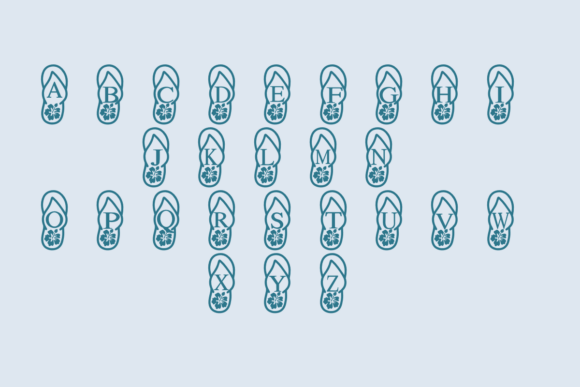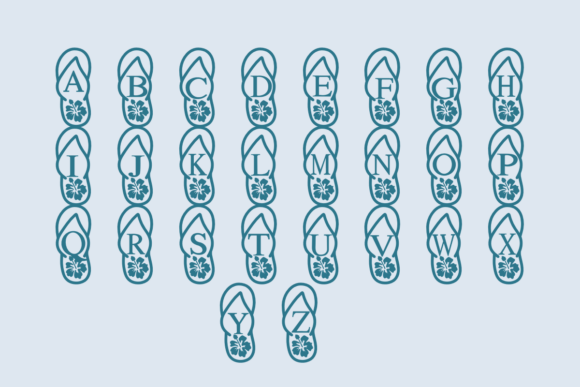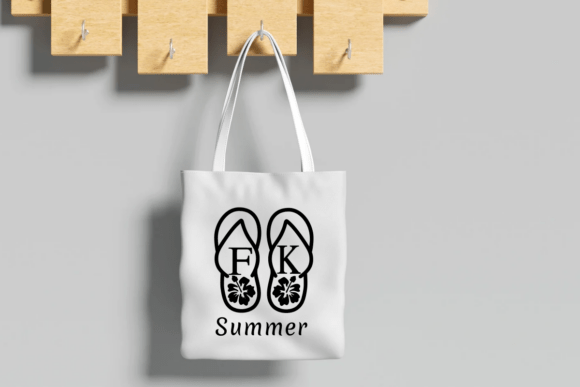
Introduction to Flip Flop Beach Font
Dive into summer vibes with Flip Flops Beach, a whimsical decorative font.
Each character in this sunny collection is framed within a playful flip-flop silhouette, complete with a beautiful hibiscus flower detail at the base This font is the perfect β€œvacation mode” asset for tropical branding, beach party invitations, and summer-themed merchandise.